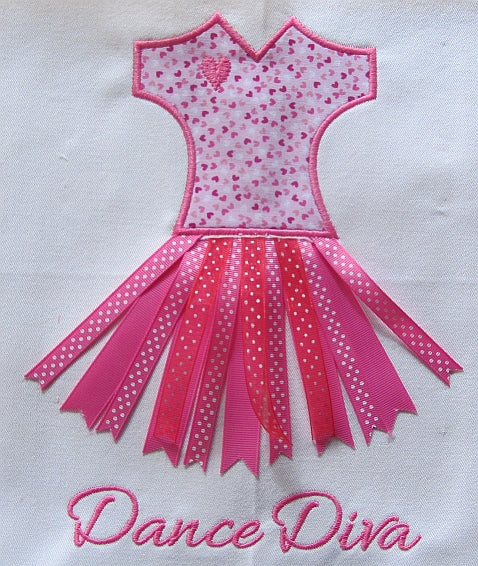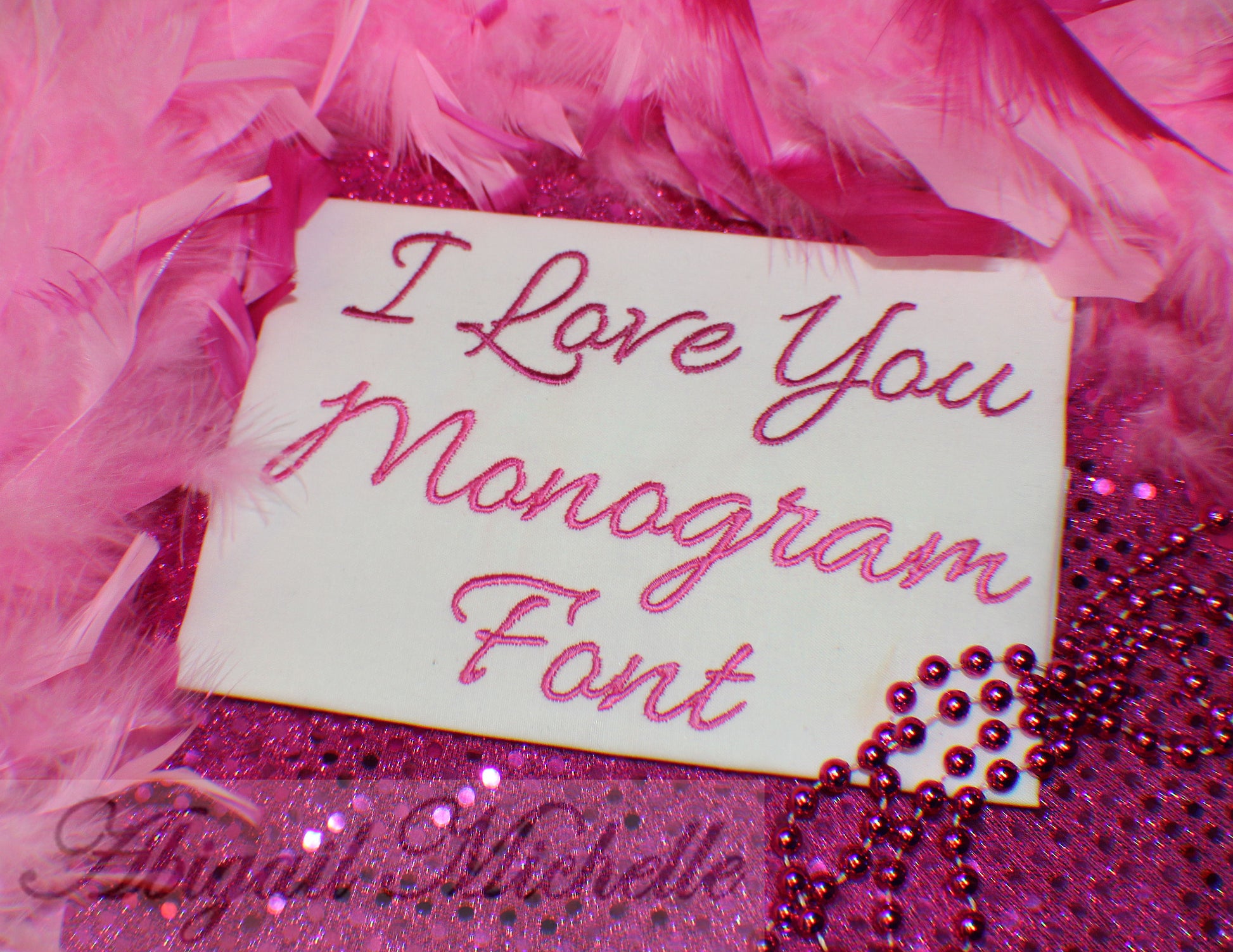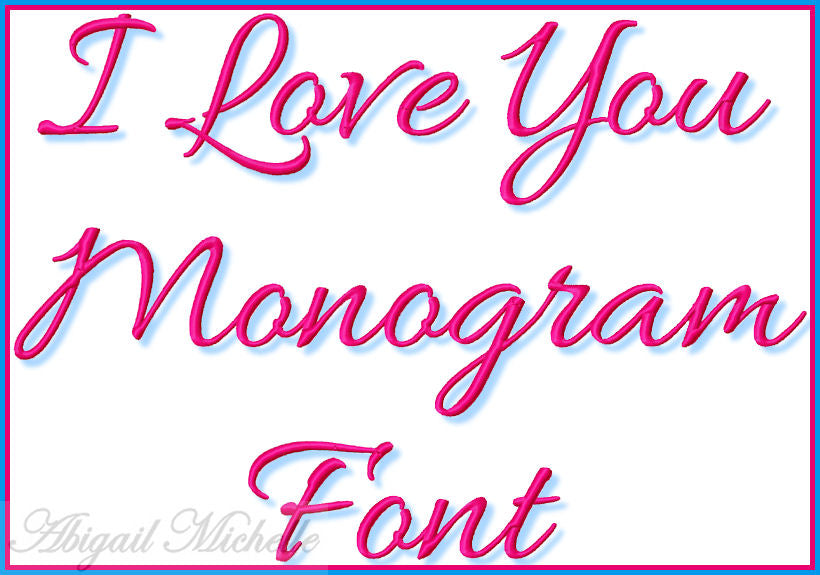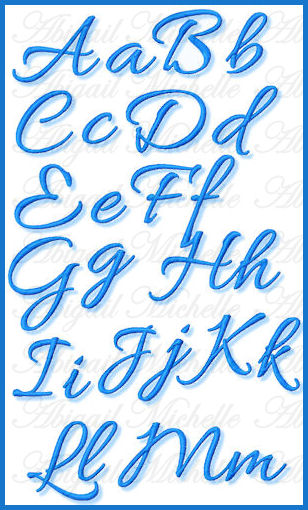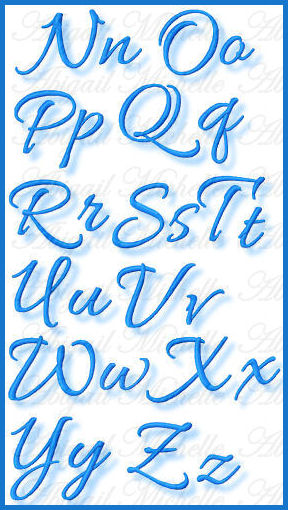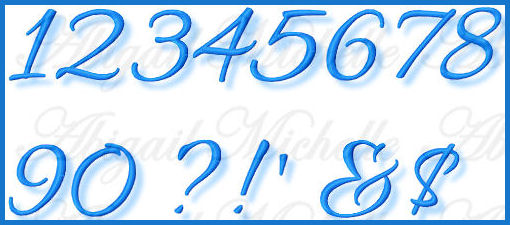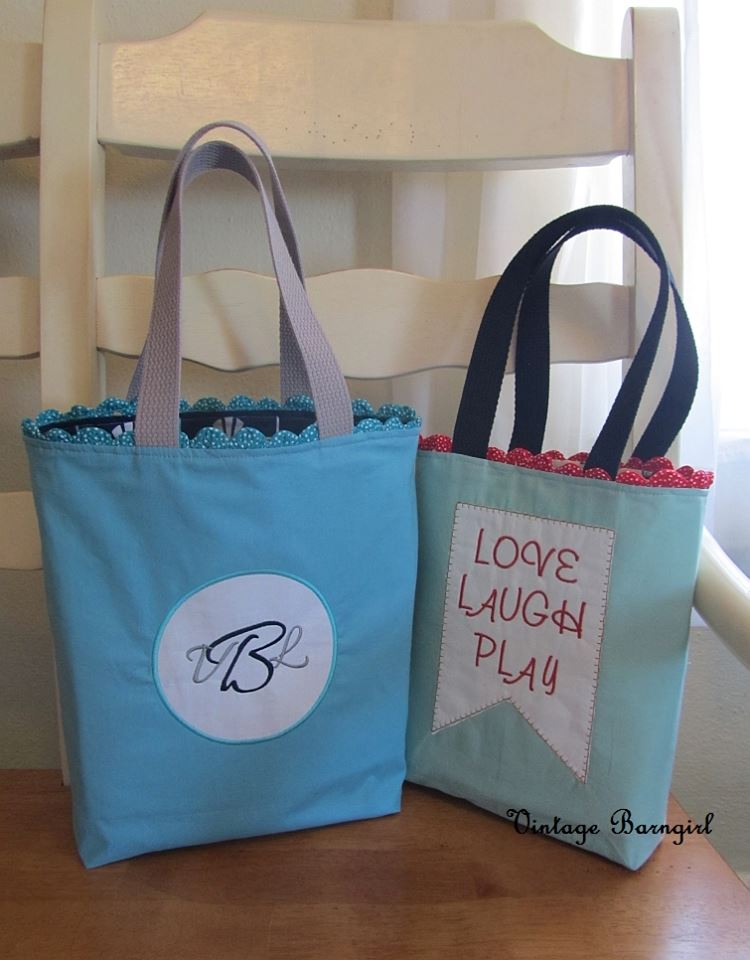
I Love You Monogram Font - 5 Sizes!
Just gorgeous! Light and whispy, this font is perfect for almost any project.
Each size includes upper and lowercase letters Aa - Zz, numbers 0 - 9 and the symbols shown.